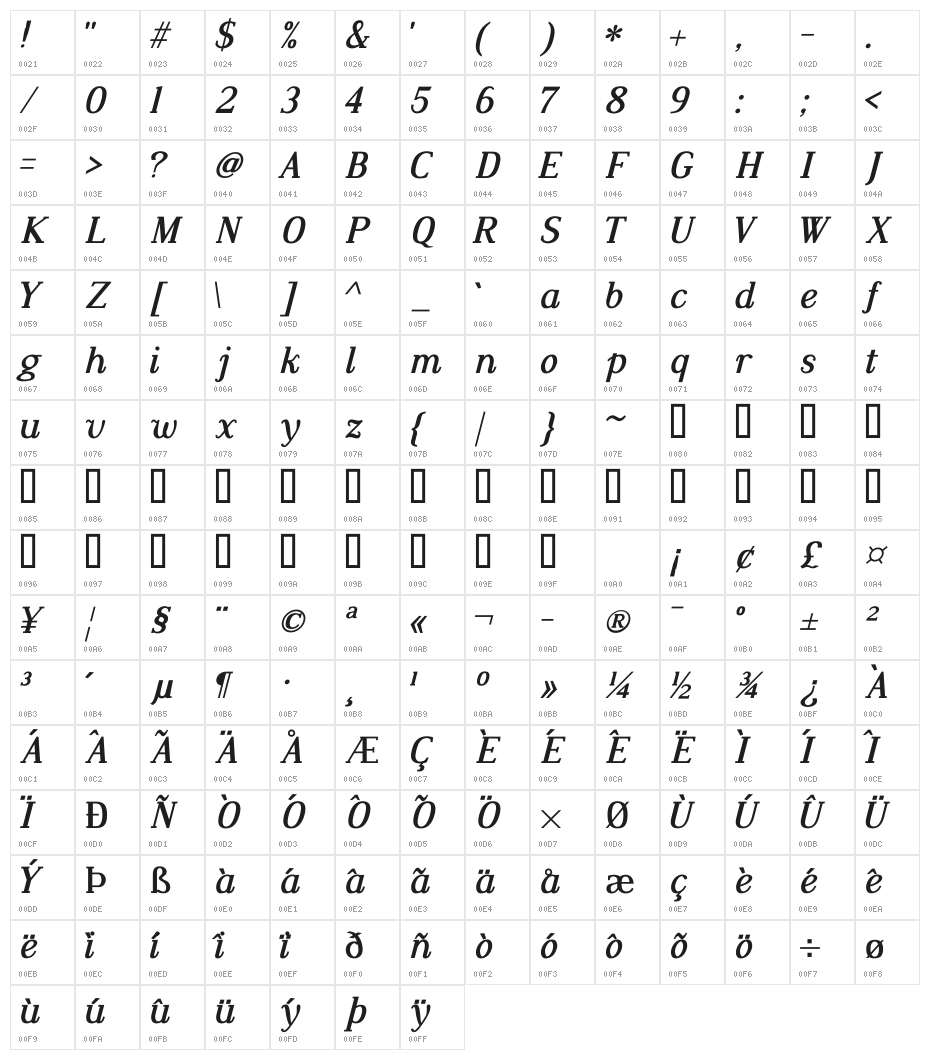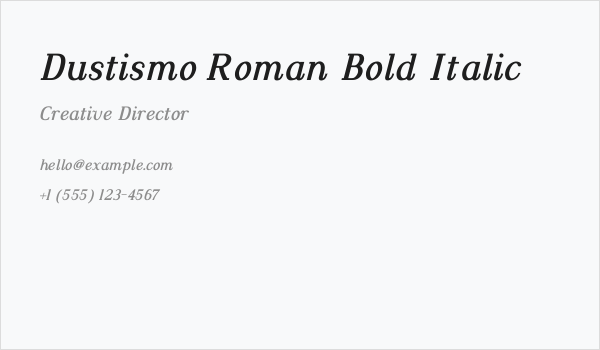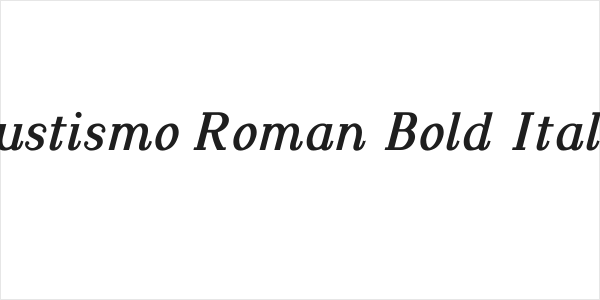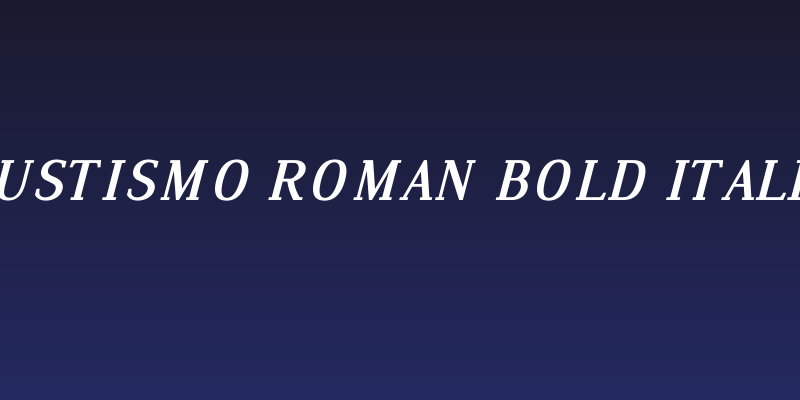
Dustismo Roman Bold Italic Font
Dustismo Roman Bold Italic Description
This font features a classic serif style with a bold and italicized presentation, offering a sophisticated and elegant appearance. The characters are well-defined with a slight slant, enhancing readability while maintaining a formal tone. The serifs are pronounced, adding a touch of tradition and authority to the text. The numerals are consistent with the alphabetic characters, providing a cohesive look across different types of content. Special characters are included, maintaining the same stylistic elements, making this font versatile for various applications.
| Use Case | Headlines, Logos, Editorials |
| Proposed Projects | Ideal for formal invitations, editorial headlines, book covers, and branding materials that require a touch of elegance and tradition. |